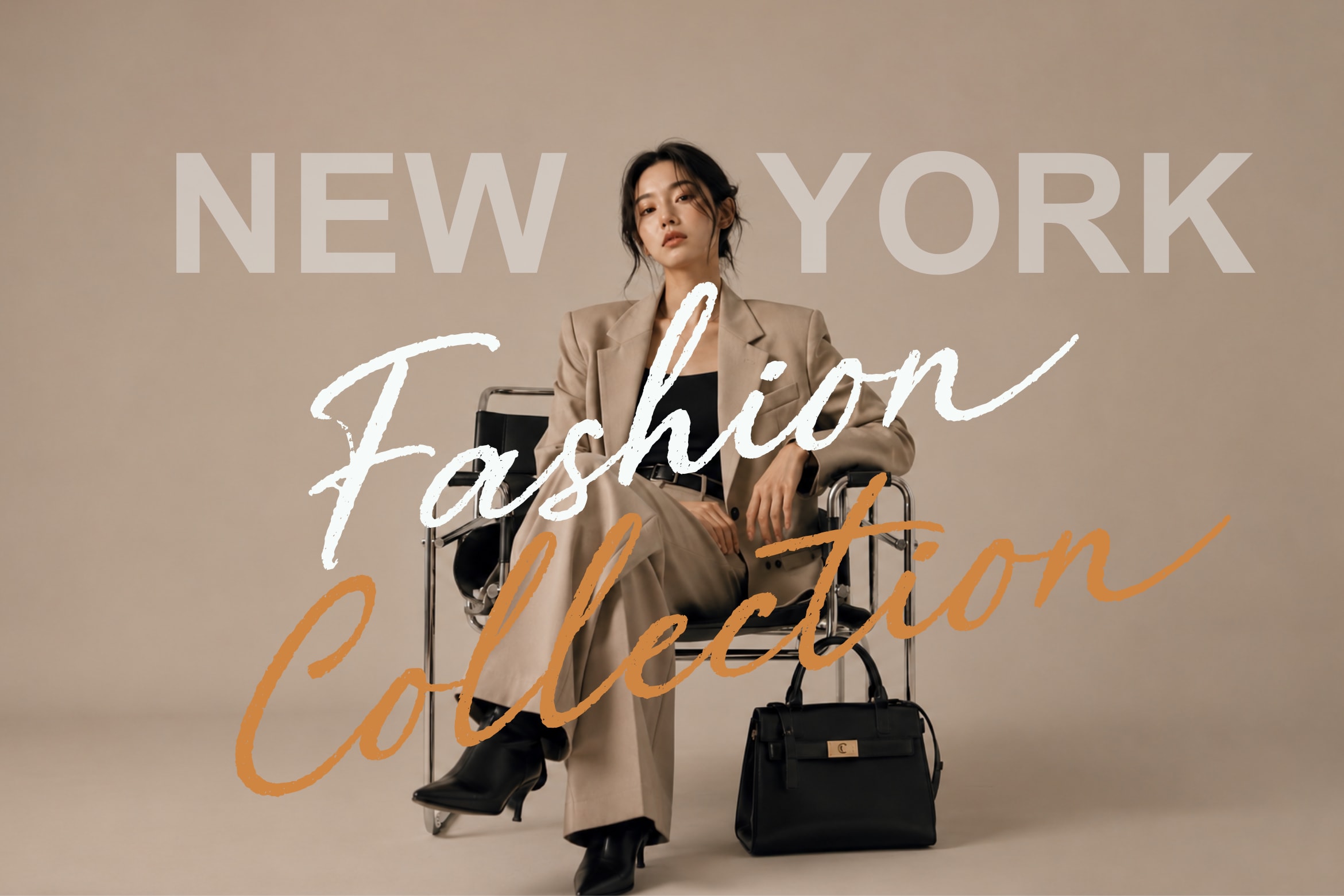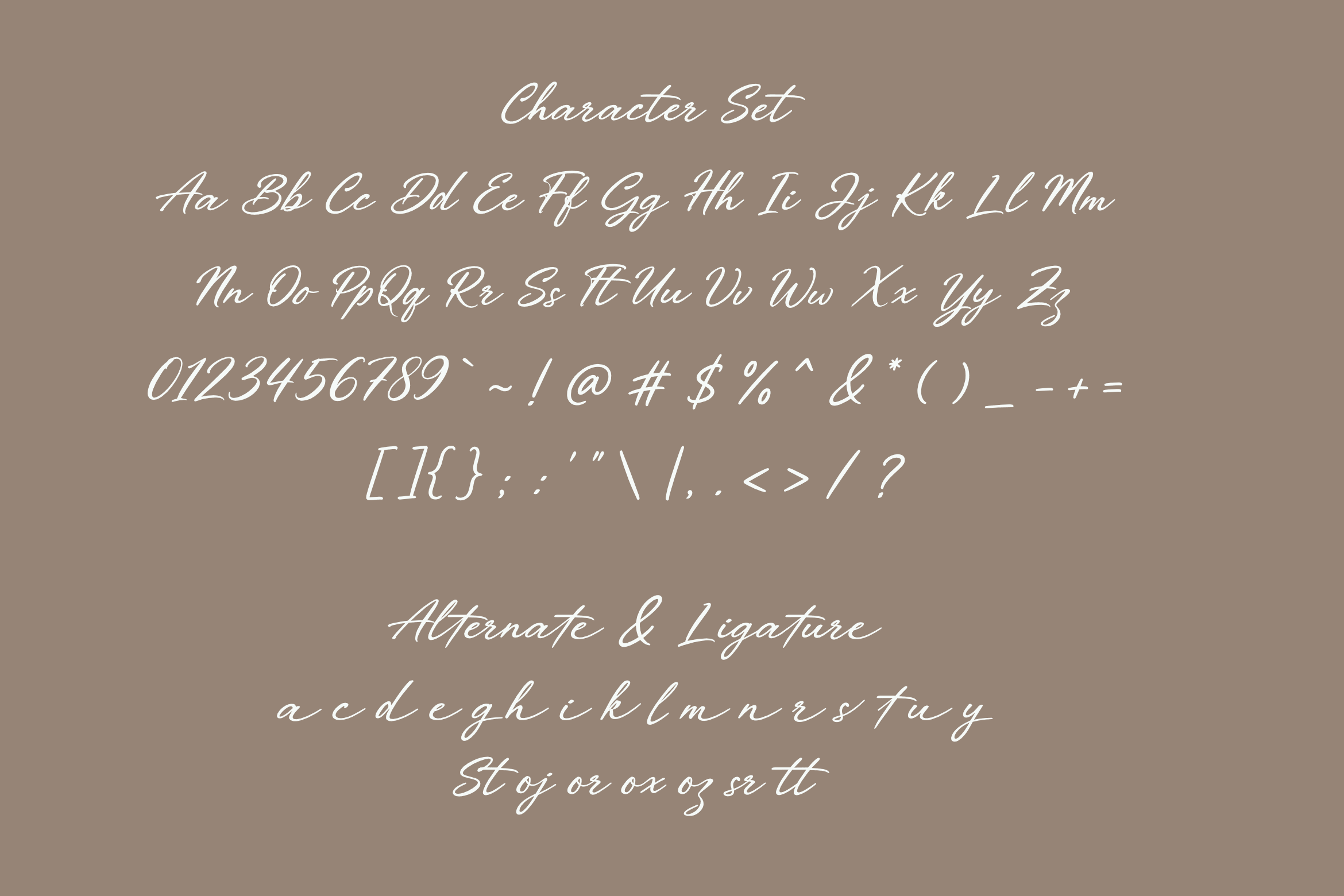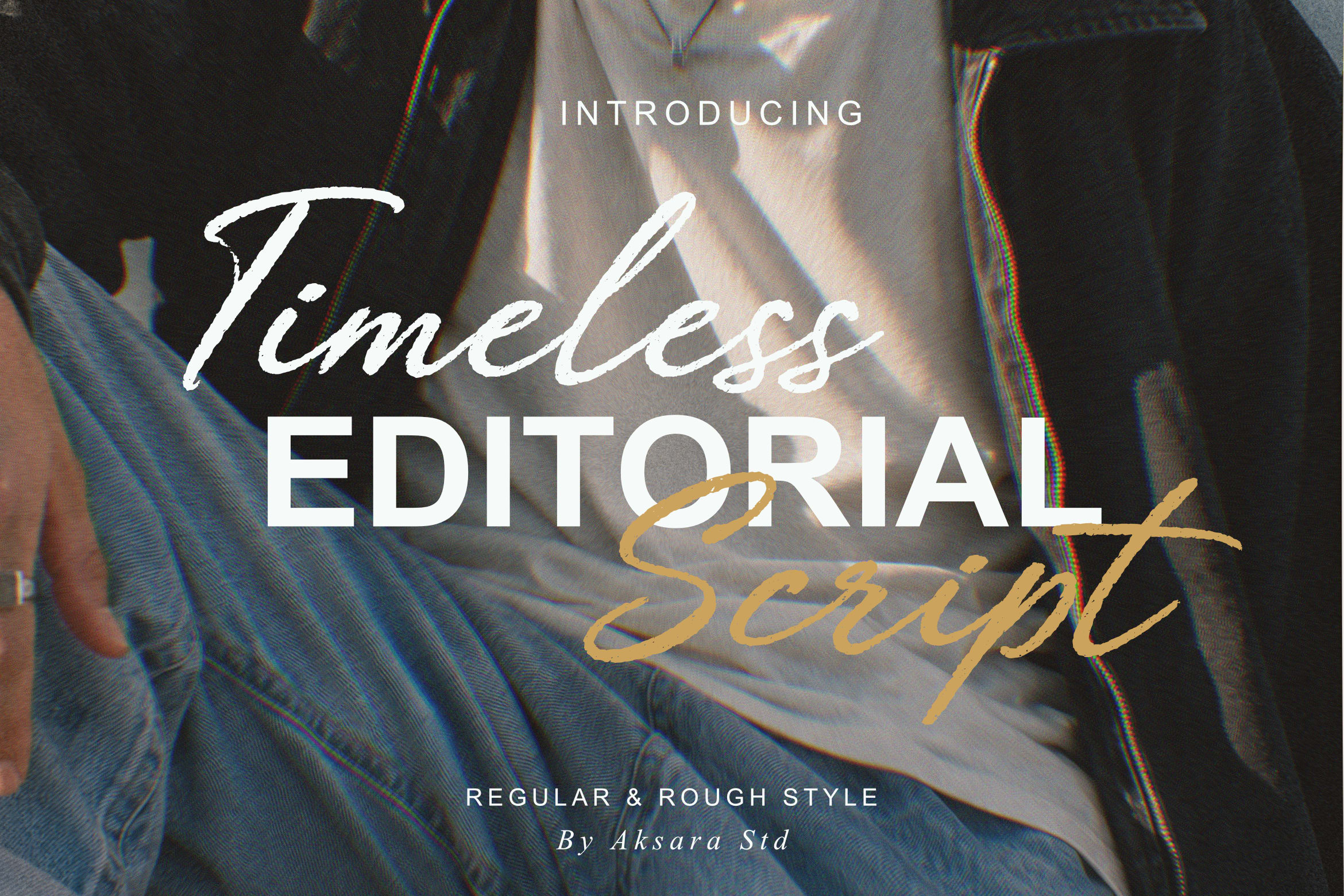
Designed with both Regular and Rough styles, Timeless Editorial Script gives you the flexibility to create anything from clean professional branding to bold handcrafted visuals. It's perfect for magazine layouts, fashion branding, social media graphics, posters, packaging, apparel designs, creative campaigns, and standout logo projects that need a fresh and modern voice.
Alternate Characters
Ligatures & Stylistic Features
Multilingual Support